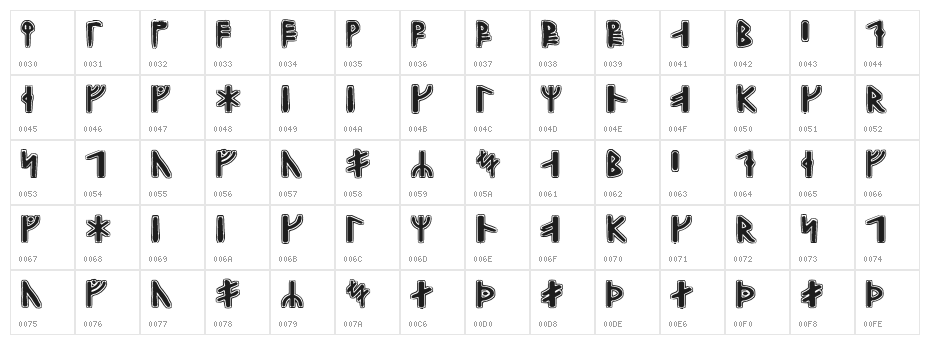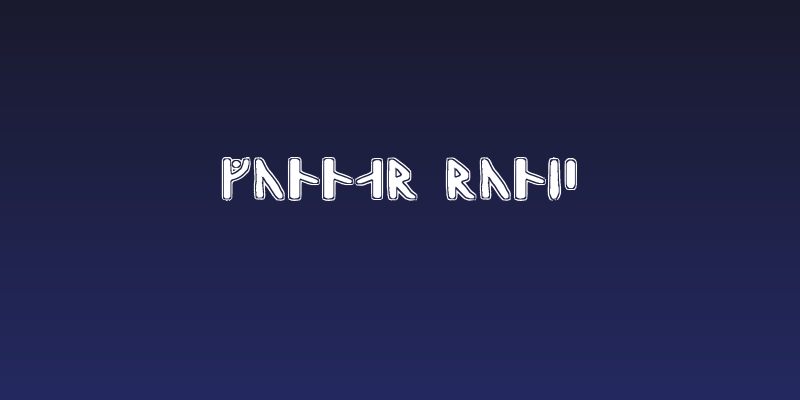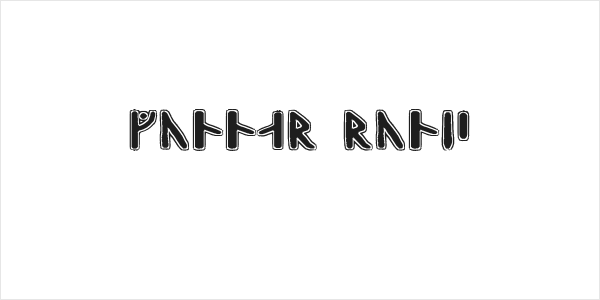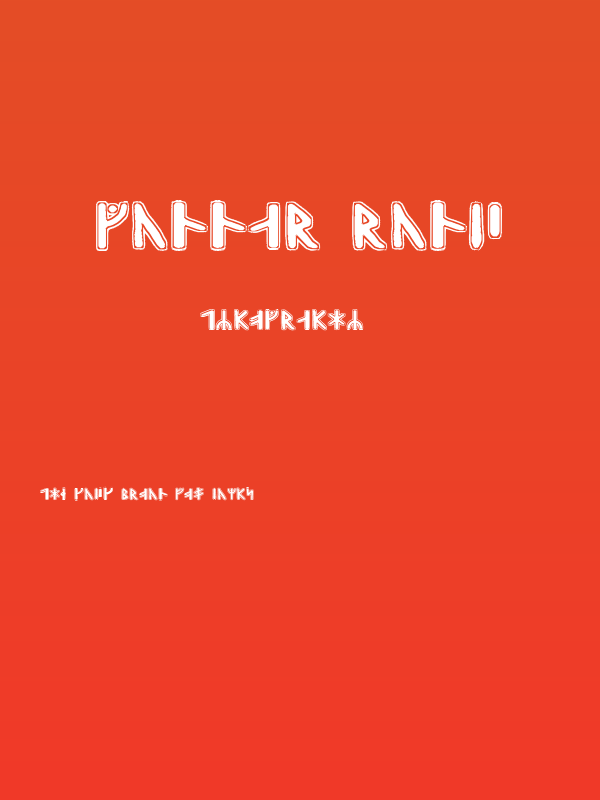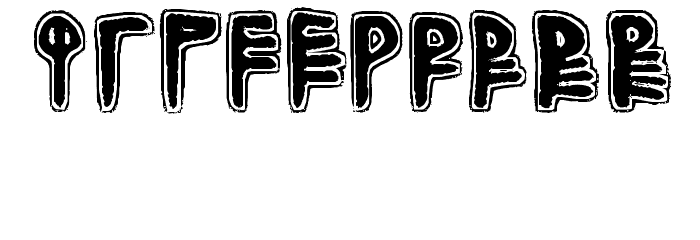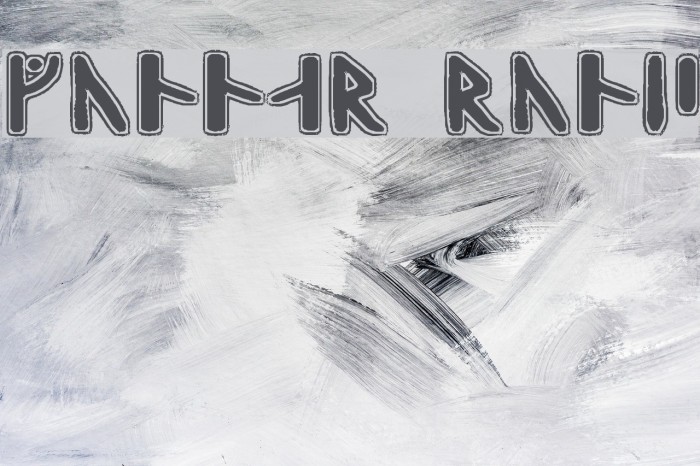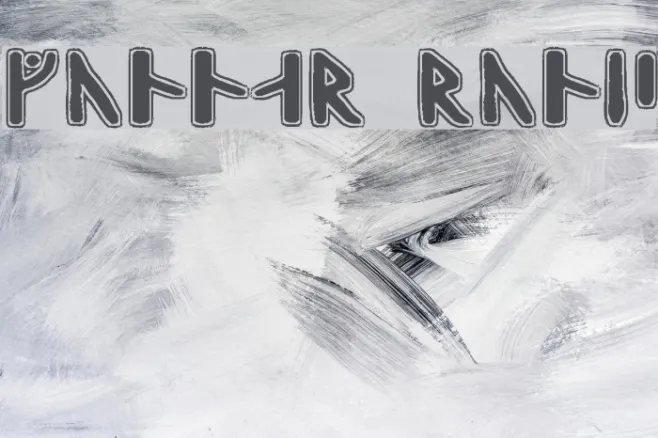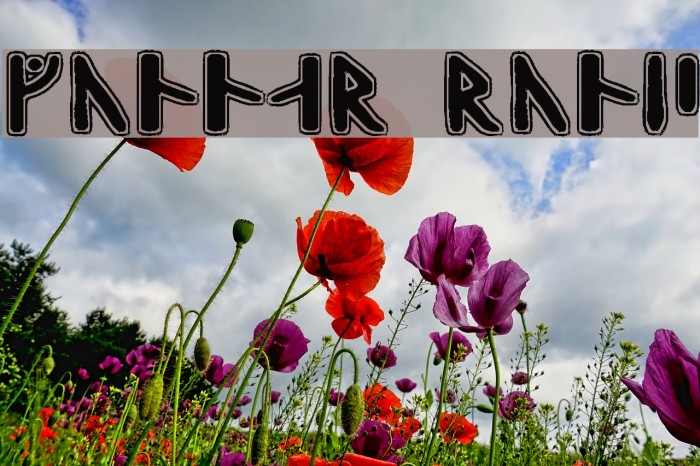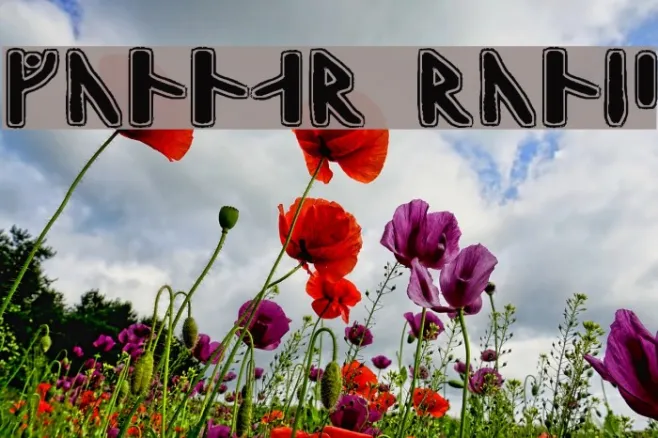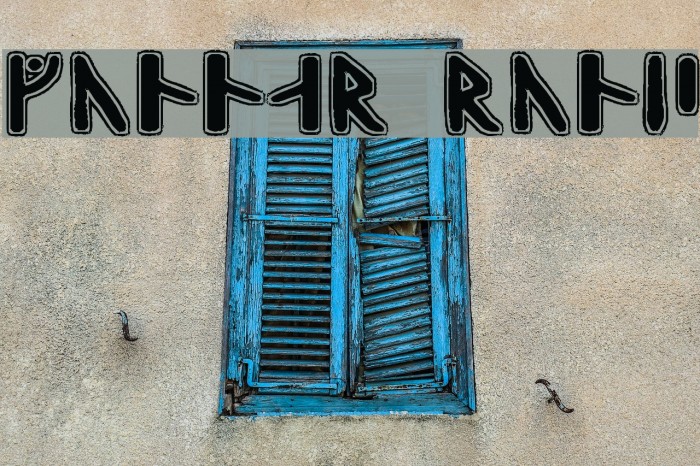
Gunnar Runic Font
Gunnar Runic Description
This font is a decorative typeface inspired by ancient runic alphabets, featuring bold, angular lines and geometric shapes. Each character is designed with a strong emphasis on vertical and horizontal strokes, creating a sense of solidity and strength. The font's unique style is reminiscent of historical inscriptions, with a modern twist that makes it suitable for contemporary design projects. The characters are evenly spaced, providing a balanced and harmonious appearance. This typeface is ideal for projects that require a touch of historical or mythical ambiance, such as fantasy-themed designs, game titles, or cultural exhibitions.
| Use Case | Logos, Headlines, Themed Events |
| Proposed Projects | Ideal for fantasy-themed designs, game titles, cultural exhibitions, and historical projects. |